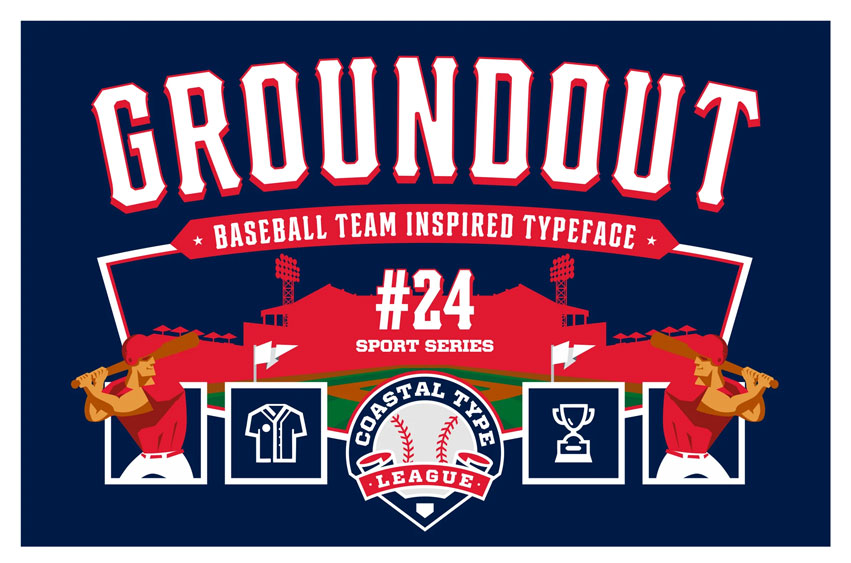
Groundout Font
Groundout Font is a strong and bold baseball font. Inspired by San Francisco Giants Logo as well as American heritage baseball team.
These fonts are perfect for sports logos, branding, posters, apparel design, magazine headlines, labels and so much more.